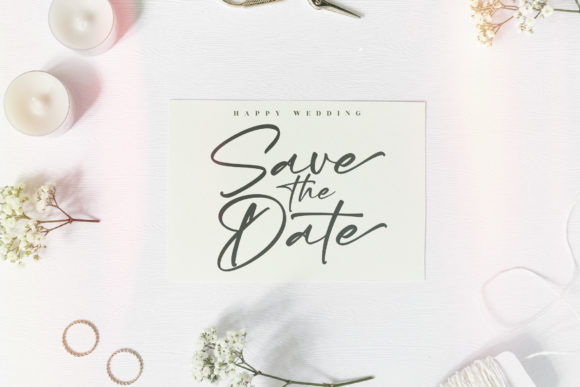
Storyland Phillpina Font
db-ku.com - Script & Handwritten -- Storyland Phillpina is a stylish and dainty script font. It is suitable for any projects such as: logos, branding projects, label, photography, watermark, special events, and all your other lovely projects that need a beautiful script taste. This font is PUA encoded which means you can access all of the glyphs and swashes with ease!